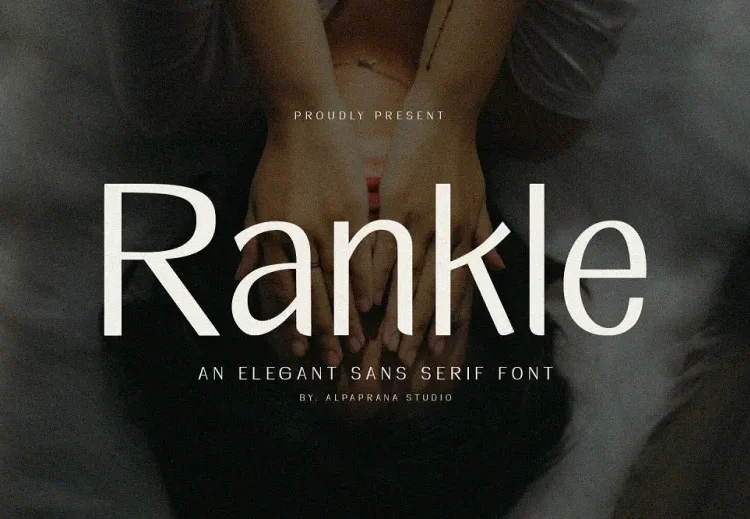
Rankle Font
Rankle is a sans serif font that exudes elegance and modernity, making it a versatile choice for a wide range of design projects. Its clean lines and refined aesthetic allow it to be seamlessly employed in various applications, such as branding, logo design, lettering, logotype, clothing design, posters, magazines, packaging, shopping bags, T-shirts, book covers, photography, special events, and more.
Whether you are looking to create a sophisticated brand identity or a stylish piece of artwork, Rankle Font offers the flexibility and elegance needed to elevate your design work.